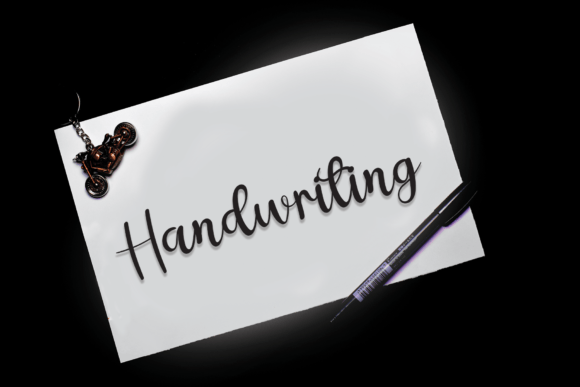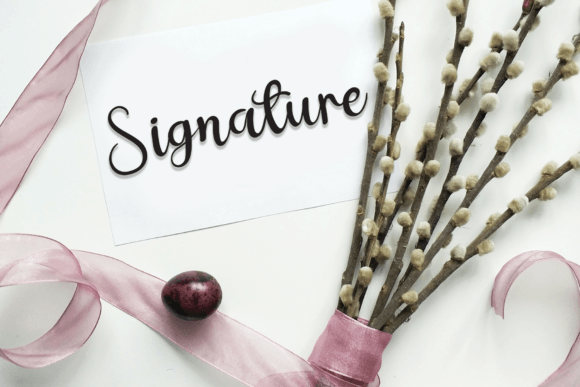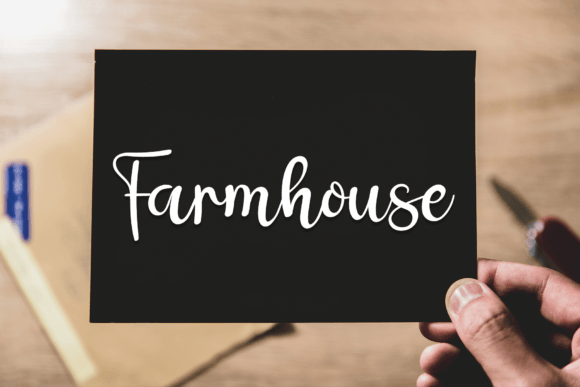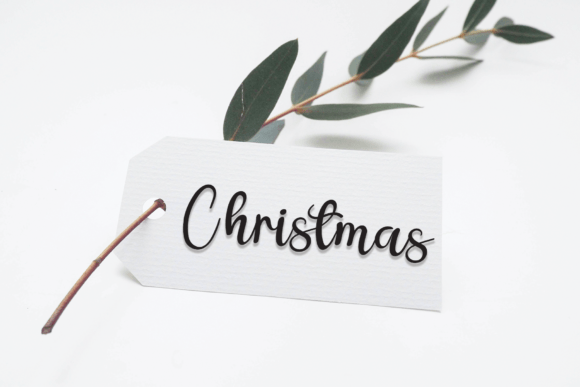
Introducing Brillian Font: The Fun and Friendly Handwritten Font for All Occasions
Are you tired of using the same old fonts for your crafts, digital designs, presentations, and greeting cards? Look no further! Brillian Font is here to add a touch of personality and whimsy to your projects. This fun and friendly handwritten font is perfect for anyone looking to add a dash of excitement to their designs.
What Makes Brillian Font Special?
Brillian Font is a unique and versatile font that can be used for a wide range of projects. Its handwritten style gives it a personal and approachable feel, making it perfect for crafts, digital designs, presentations, and greeting cards. Whether you’re a designer, crafter, or simply someone who loves to create, Brillian Font has the potential to become your go-to font for all occasions.
Uses for Brillian Font
So, what can you use Brillian Font for? The possibilities are endless! Here are a few ideas to get you started:
- Crafts: Use Brillian Font to add a personal touch to your scrapbooking, journaling, and other paper crafts.
- Digital Design: Add a playful touch to your social media graphics, blog posts, and website designs.
- Presentations: Make your presentations stand out with a fun and engaging font that’s sure to capture your audience’s attention.
- Greeting Cards: Create personalized and unique greeting cards for birthdays, holidays, and special occasions.
Why Designers and Crafters Love Brillian Font
So, why do designers and crafters love Brillian Font? Here are just a few reasons:
- Unique Style: Brillian Font has a one-of-a-kind style that’s sure to make your projects stand out.
- Ease of Use: Brillian Font is easy to read and use, making it perfect for projects where clarity is important.
- Versatility: Brillian Font can be used for a wide range of projects, from formal to informal.
- Fun and Friendly: Brillian Font has a playful and approachable feel that’s sure to bring a smile to your face.
Tips for Using Brillian Font
Here are a few tips for using Brillian Font in your projects:
- Pair it with Other Fonts: Brillian Font pairs well with other fonts, so don’t be afraid to experiment with different combinations.
- Use it for Headings: Brillian Font is perfect for headings and titles, where its playful style can really shine.
- Add it to Your Digital Toolkit: Brillian Font is a great addition to any digital toolkit, and can be used in a wide range of digital design projects.
In conclusion, Brillian Font is a fun and friendly handwritten font that’s perfect for designers, crafters, and anyone who loves to create. Its unique style, ease of use, and versatility make it a great addition to any project. Whether you’re using it for crafts, digital designs, presentations, or greeting cards, Brillian Font has the potential to become your favorite font, whatever the occasion!
Get Ready to Fall in Love with Brillian Font!
So, what are you waiting for? Give Brillian Font a try today and see why it’s quickly becoming a favorite among designers and crafters. With its playful style and endless uses, Brillian Font is sure to bring a touch of excitement to your projects. Try it out and see for yourself why Brillian Font is the perfect choice for all your design needs!